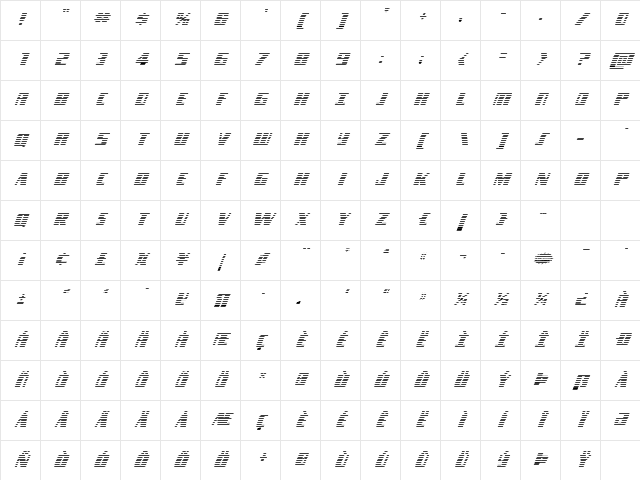
Typhoon Gradient is a composed and adaptable typeface that performs quietly and consistently across a wide range of design contexts. The slanted form adds forward momentum and visual energy.
Pro Tip: Use Typhoon Gradient for emphasis, pull quotes, and subheadings where its slanted energy can add rhythm to the layout.